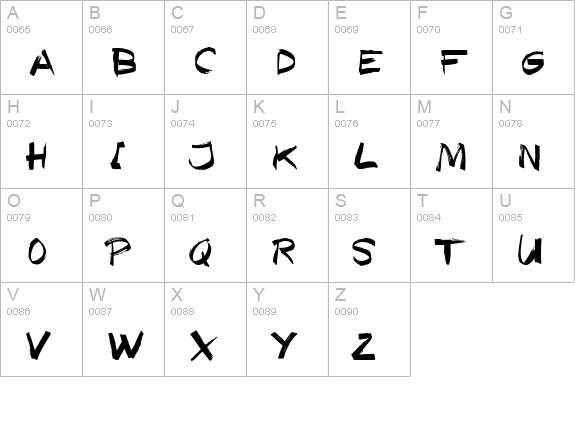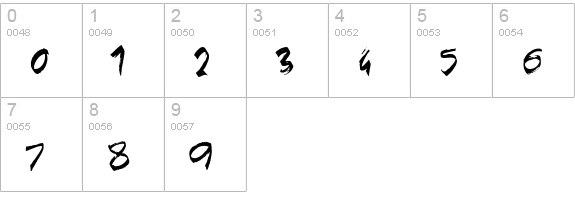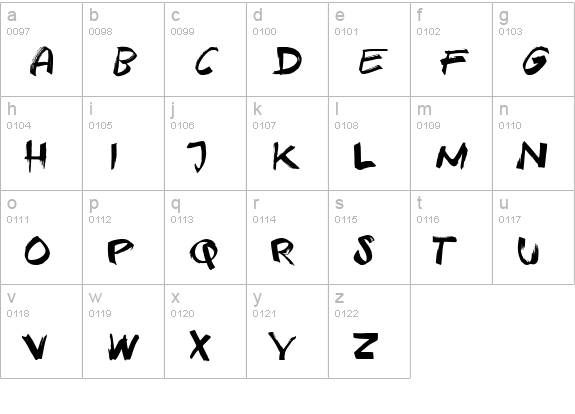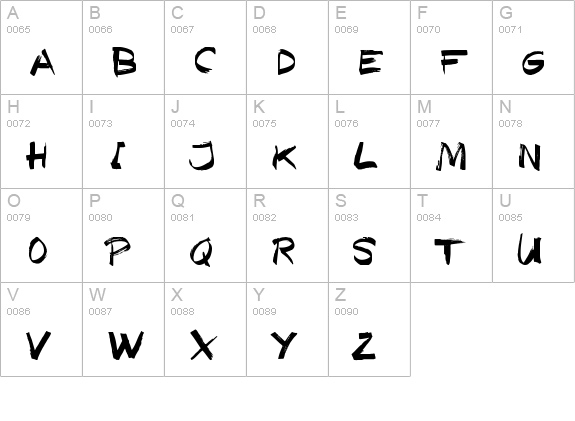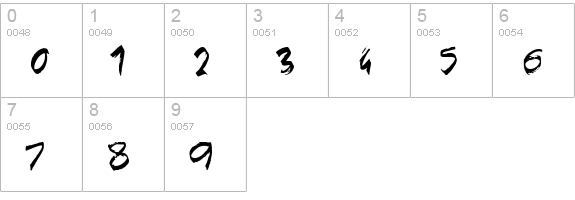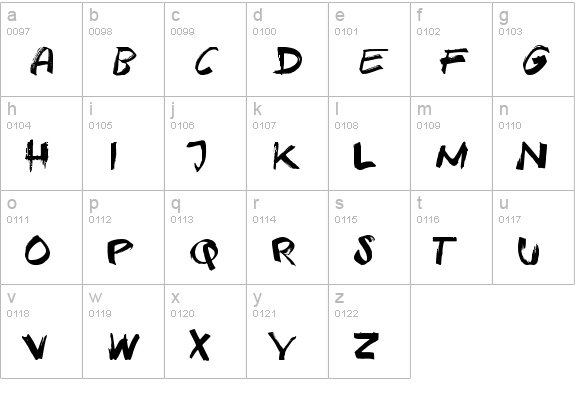
Texas Grunge Demo is a captivating and edgy font that perfectly embodies the raw and rebellious spirit of the grunge movement. With its jagged and distressed letterforms, this font exudes a sense of urban decay and alternative creativity. Each letter is meticulously crafted to showcase the ruggedness and authenticity of the grunge aesthetic. The uneven lines and rough texture give the font a worn-out and weathered appearance, making it ideal for designs that require a gritty and vintage feel. What sets Texas Grunge Demo apart is not just its striking appearance, but also its availability as a free download. FontsMarket.com offers this font for free, allowing designers, artists, and enthusiasts alike to access its unique and unconventional style without any limitations. Whether you're working on a poster for a grunge-inspired music event, designing album covers for a rock band, or creating a logo for a skateboard brand, Texas Grunge Demo will add a touch of authentic grunge flair to your projects. Its versatility and distinctive character make it a must-have for anyone seeking to inject a rebellious and urban vibe into their designs. Download Texas Grunge Demo for free at FontsMarket.com and unleash the power of grunge typography in your creative endeavors. Embrace the free-spirited nature of the grunge movement and let Texas Grunge Demo be your ultimate source of inspiration.